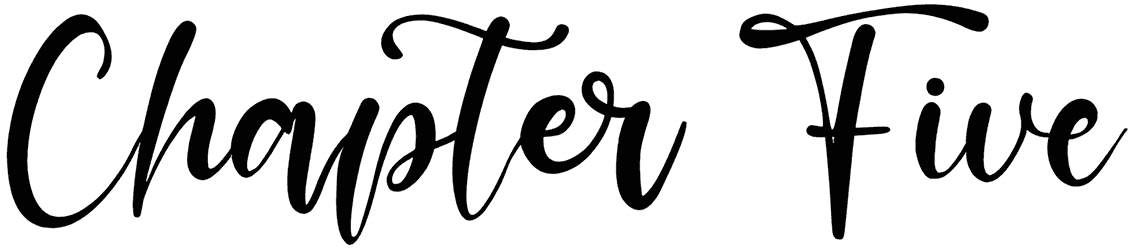
Chapter Five Font
If you’re in charge of a project with a lighthearted tone, you might find Chapter Five useful. The connected letters of this calligraphy font make it ideal for usage in both print and digital publications.